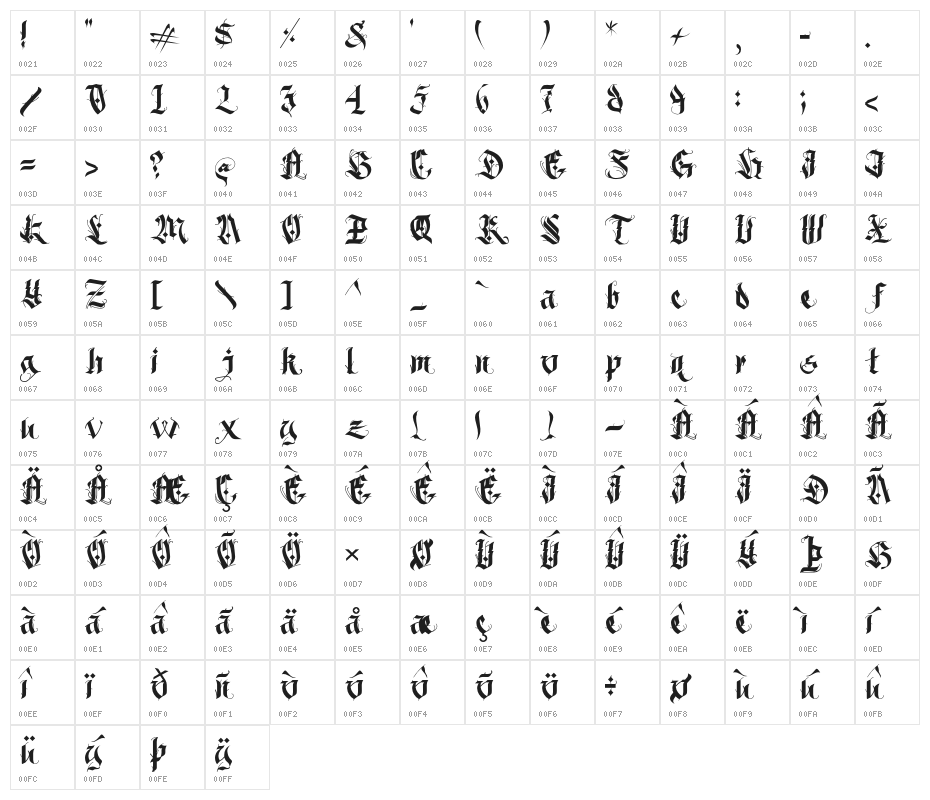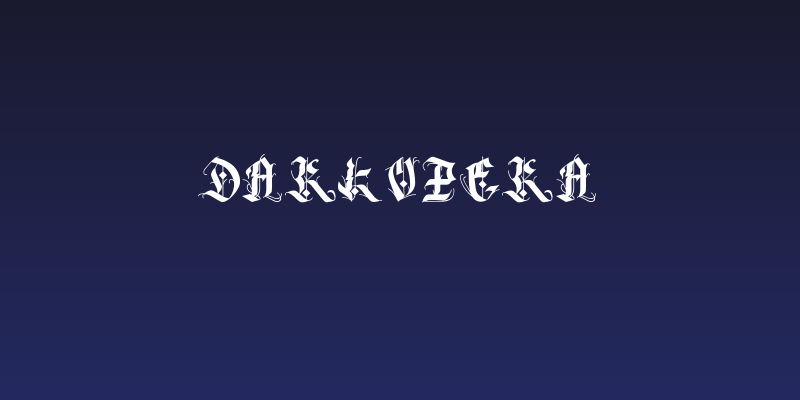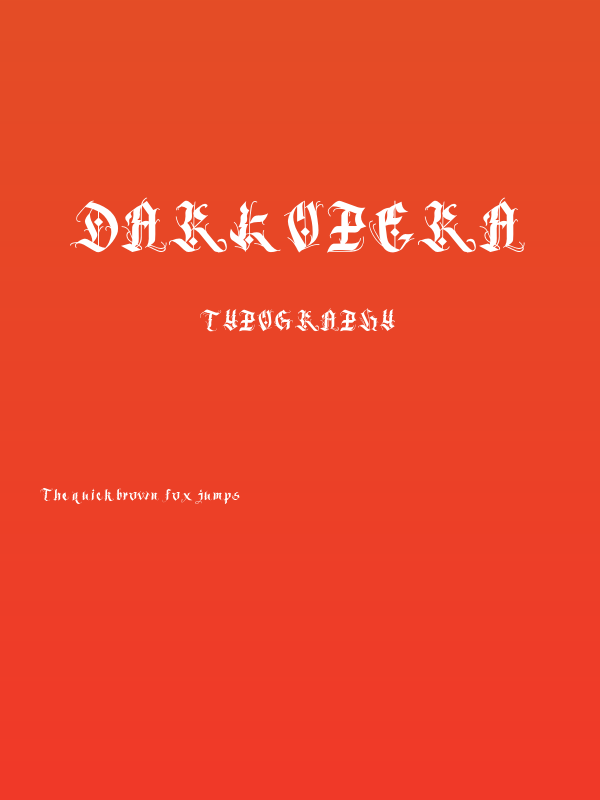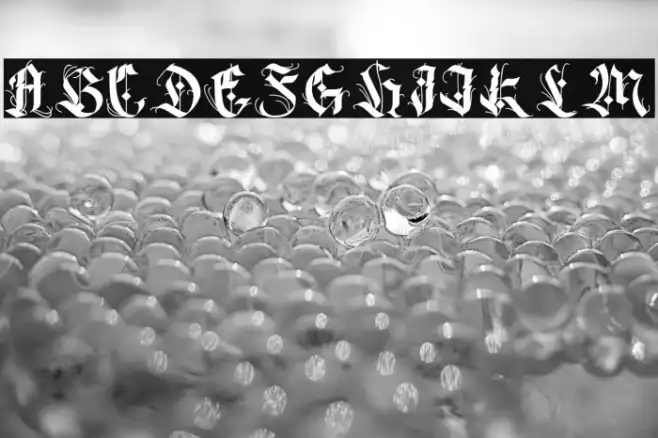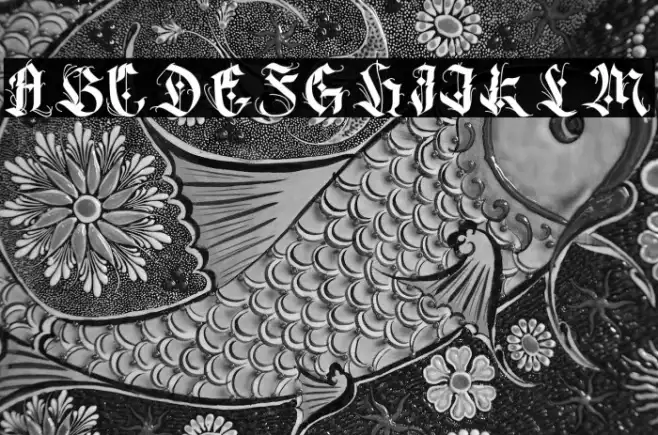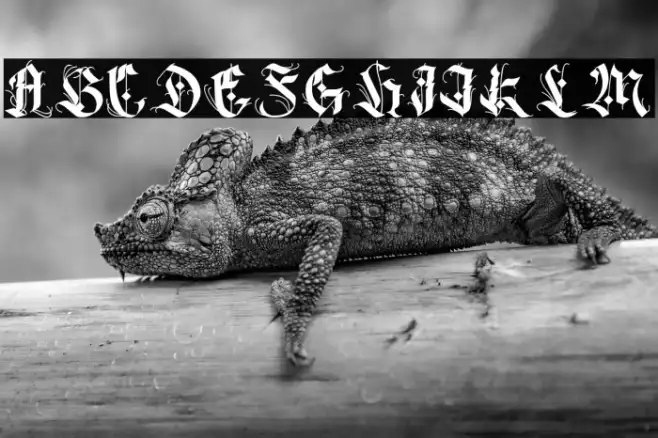
DarkOpera Font
DarkOpera Description
This font is a striking example of Blackletter style, characterized by its intricate and ornate design. The letters feature sharp, angular lines with dramatic flourishes and embellishments, giving it a gothic and medieval appearance. The uppercase letters are bold and commanding, while the lowercase letters maintain the same level of detail and complexity. Numbers and special characters are equally elaborate, ensuring consistency across all elements. The font's high contrast between thick and thin strokes adds to its dramatic effect, making it ideal for creating a strong visual impact.
| Overall Style | Gothic |
| Use Case | Headlines, Logos, Decorative purposes |
| Proposed Projects | Ideal for projects requiring a gothic or medieval theme, such as historical event posters, fantasy book covers, or themed invitations. |